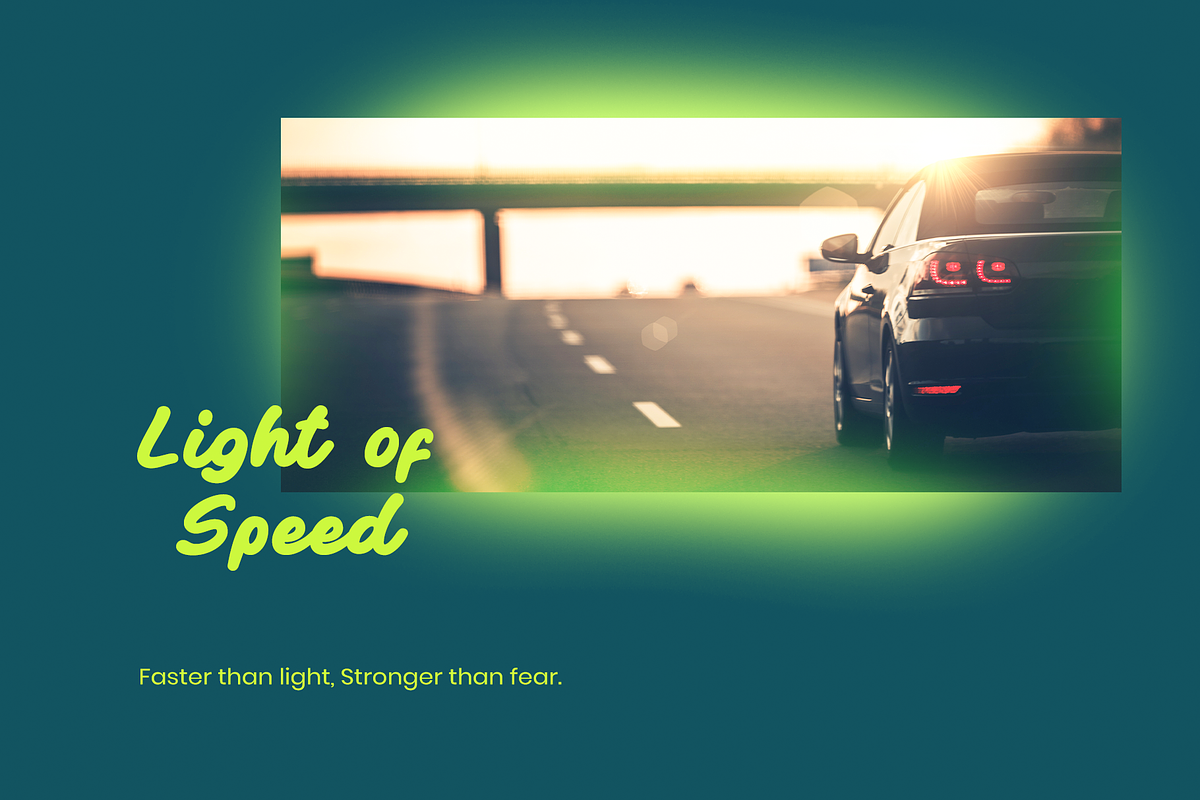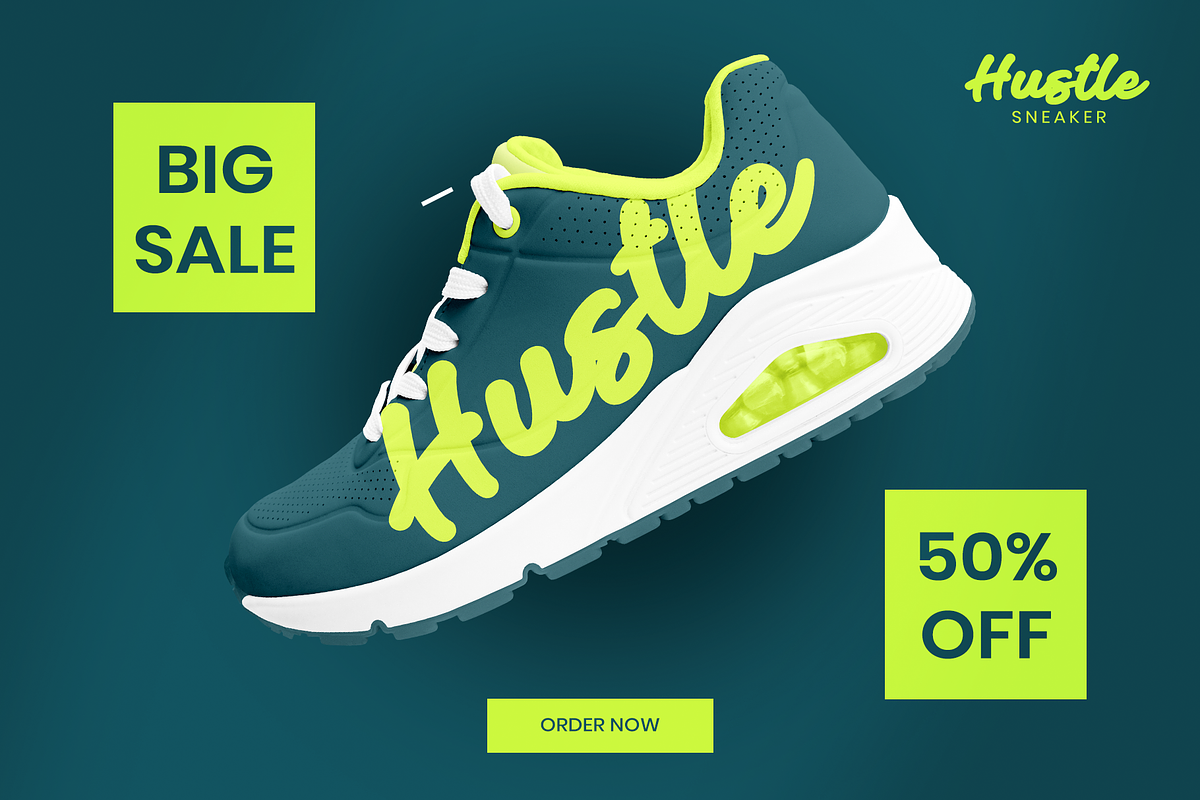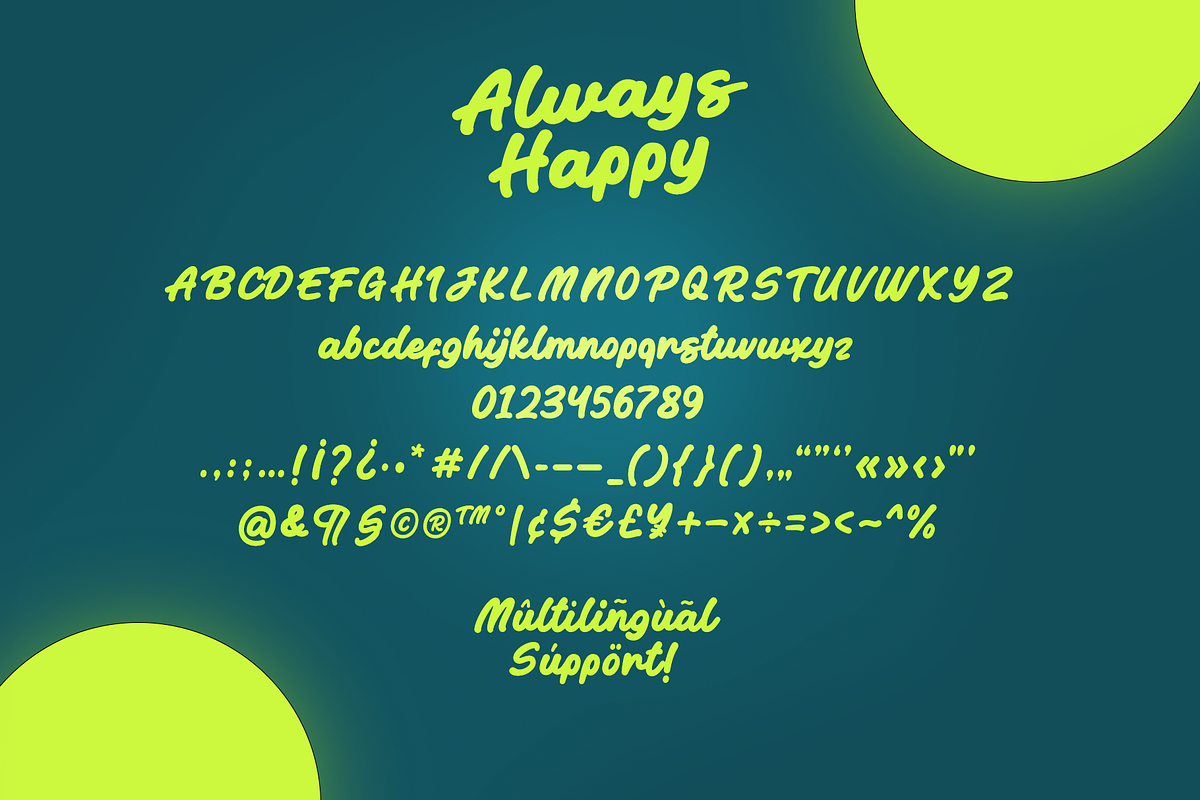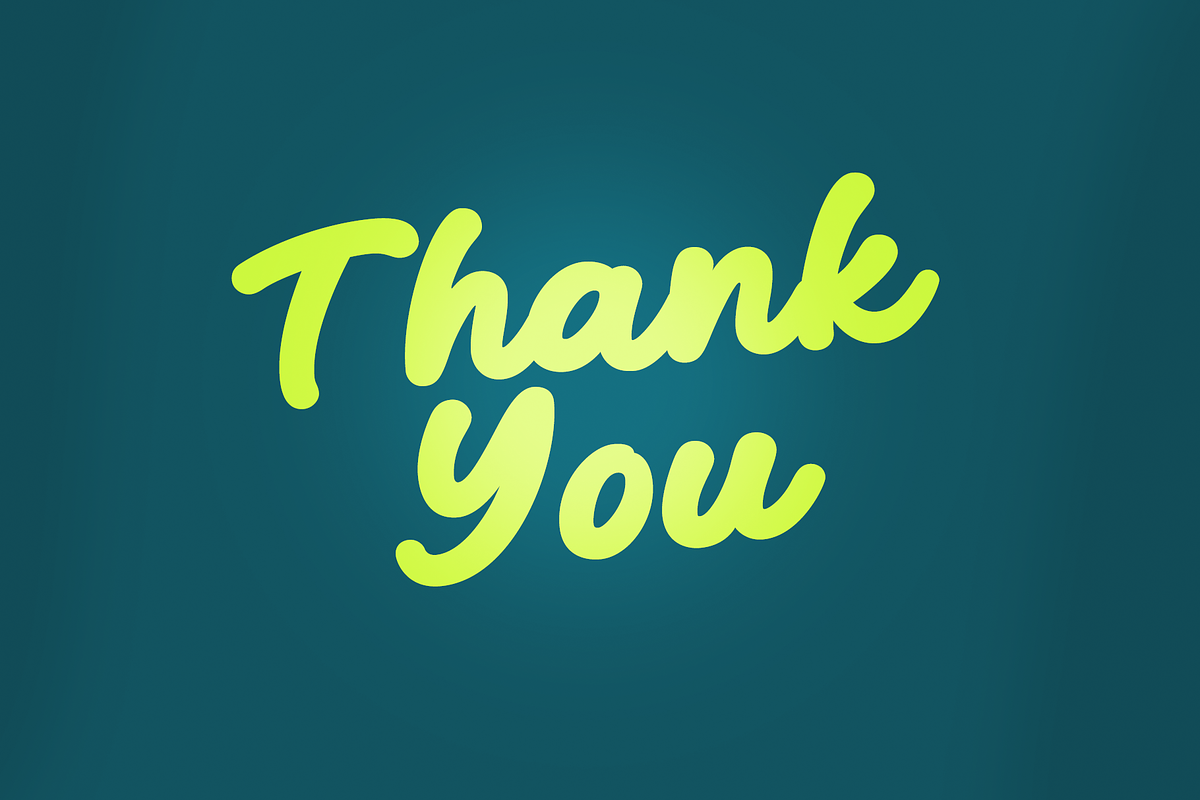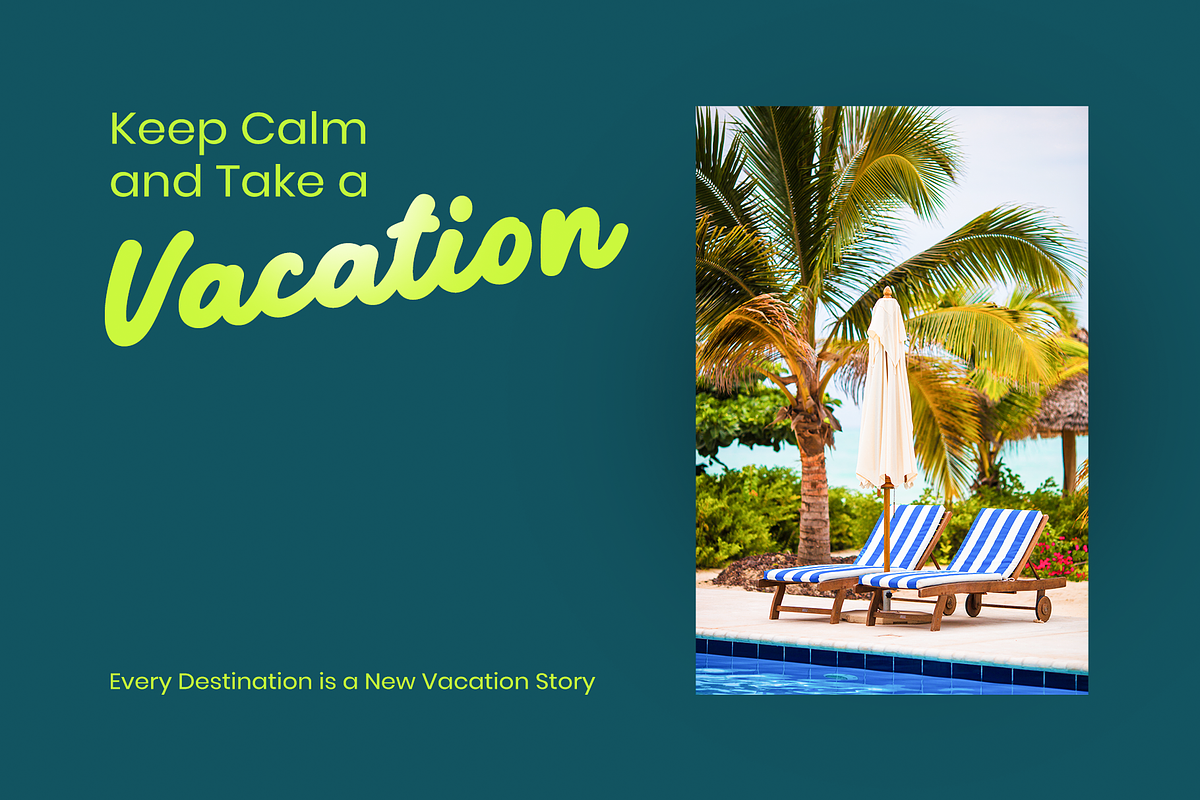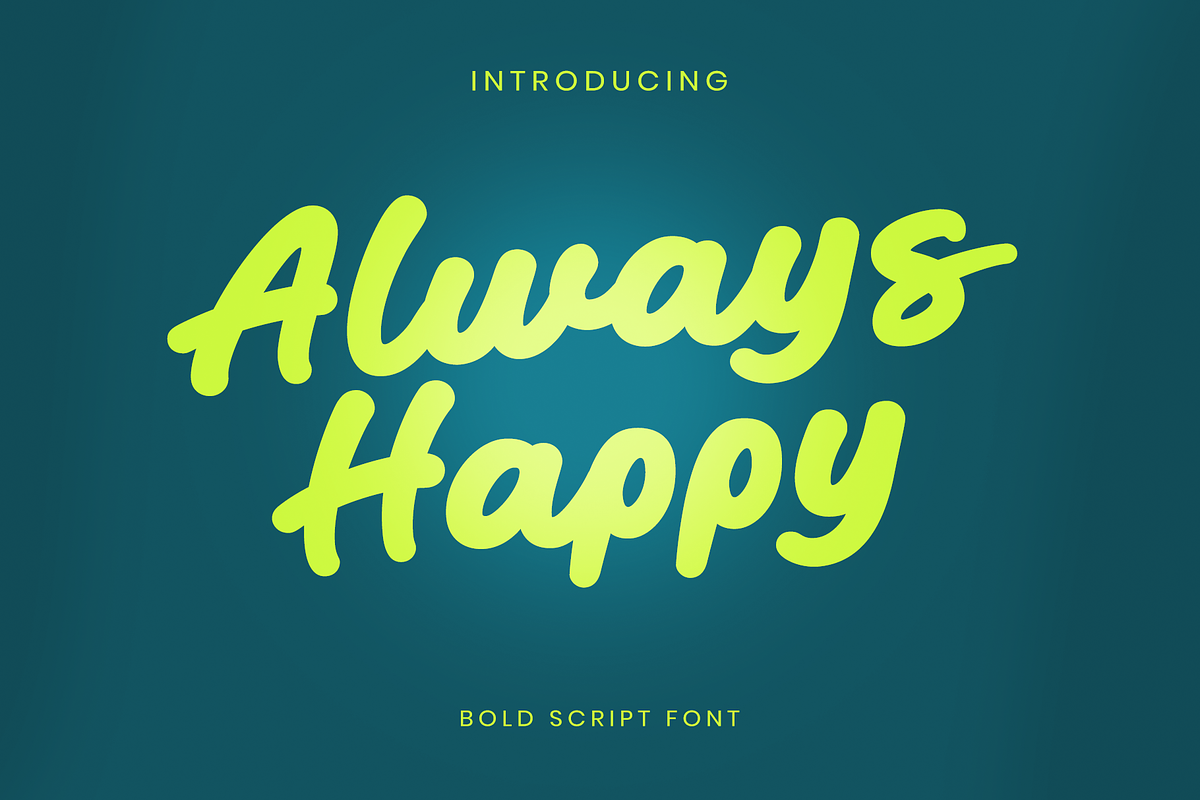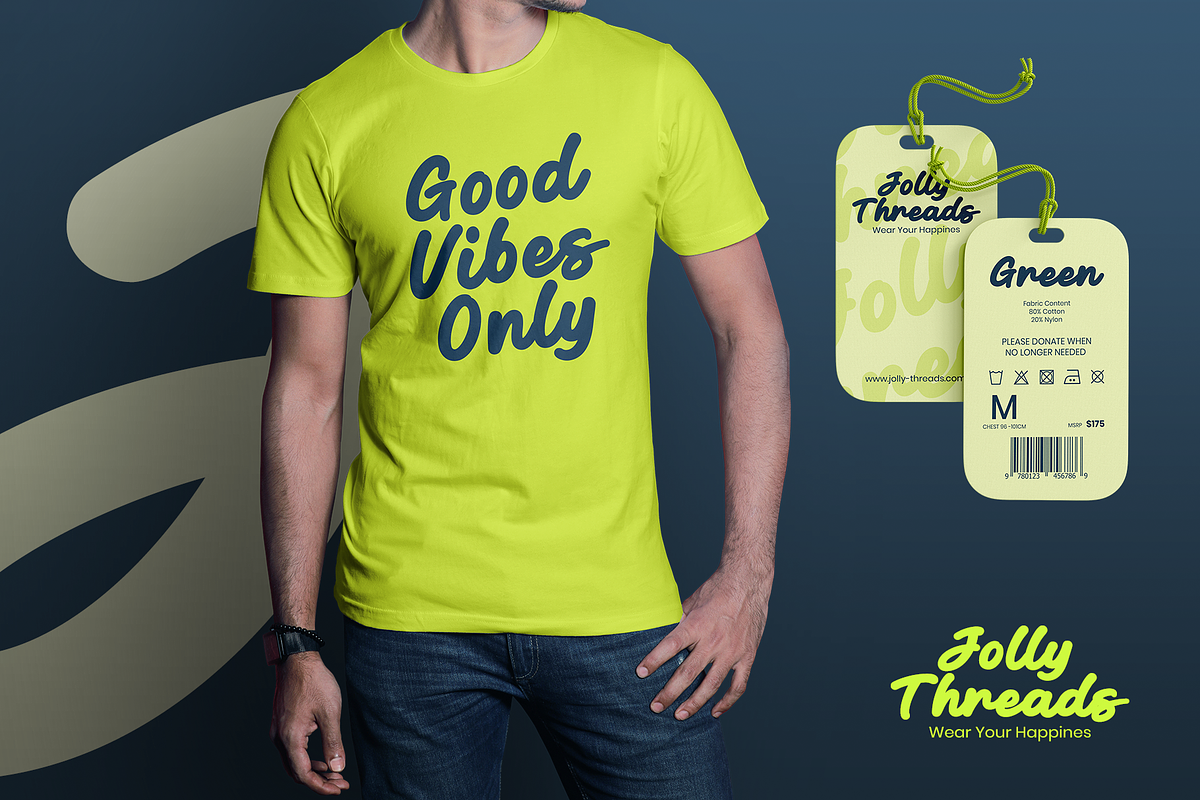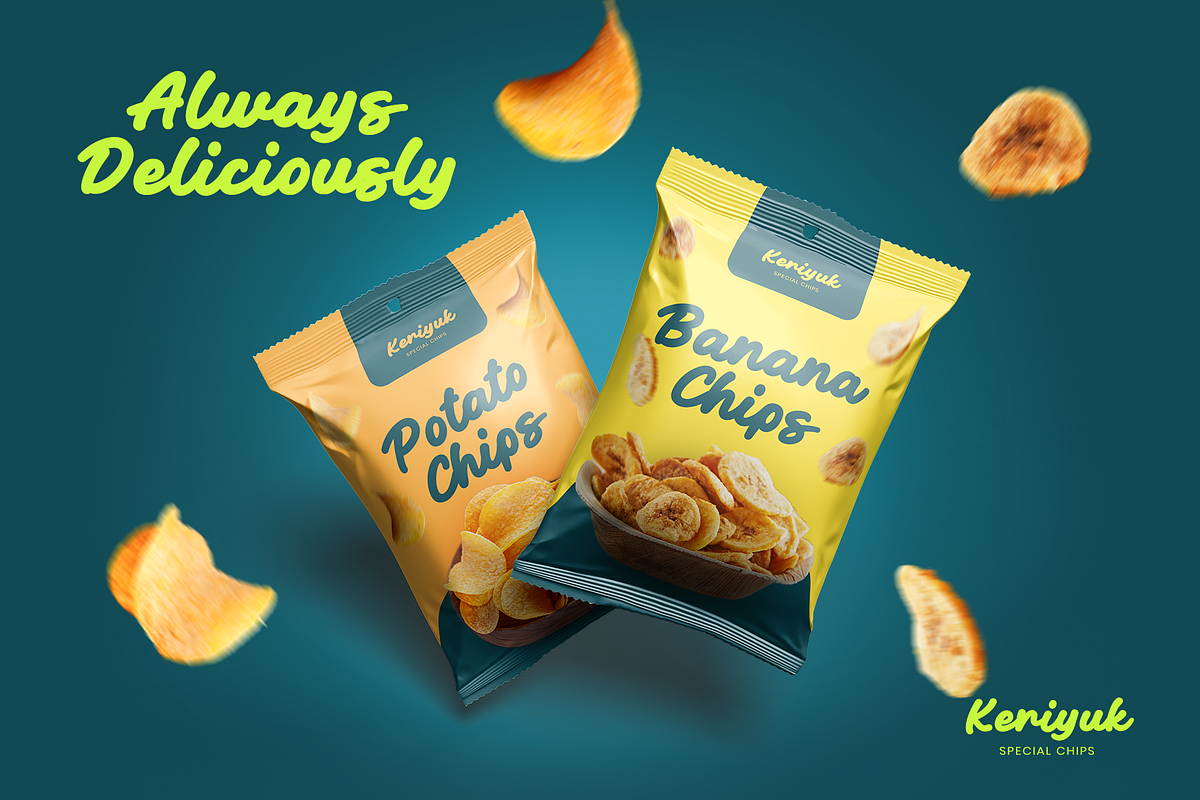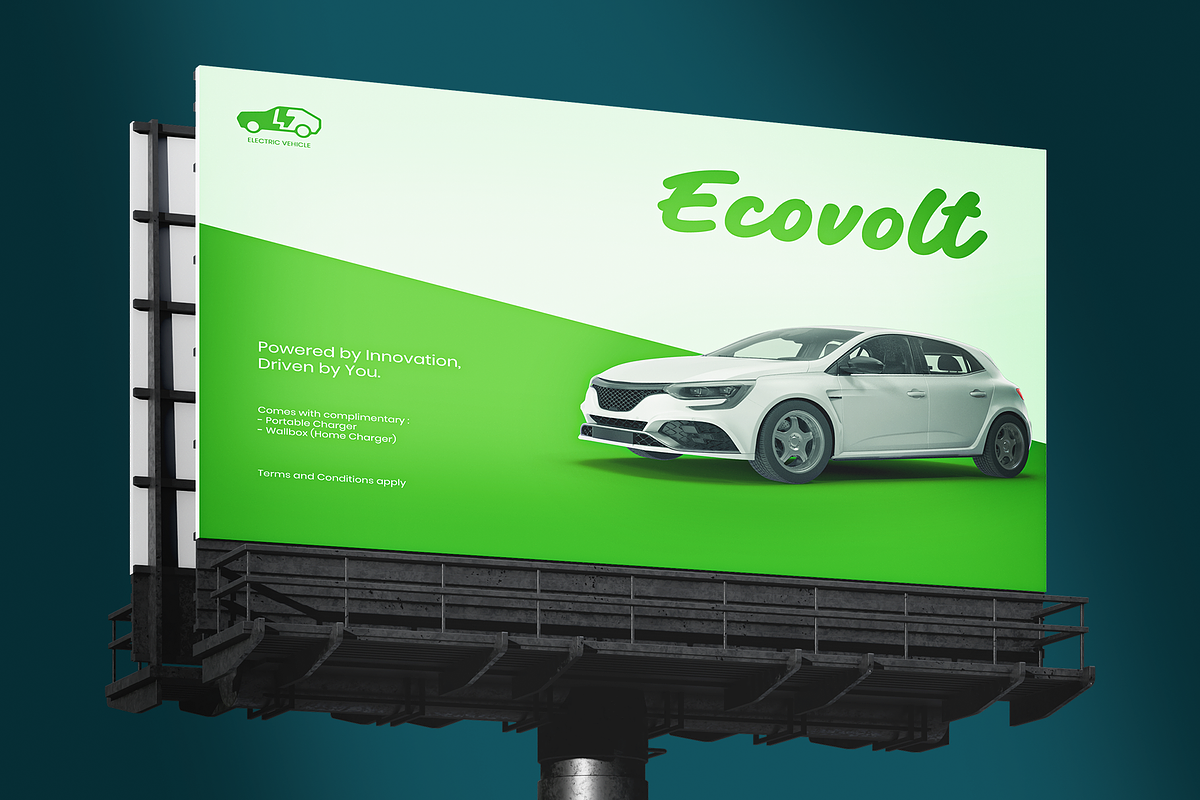
Always Happy
Always Happy is a fun and energetic handwritten font designed to bring joy and personality to your branding projects. With smooth curves and a natural flow, this font is perfect for logos, packaging, social media, and more.
- Playful and natural handwritten style
- Perfect for branding, logos, and packaging
- Multilingual support for global reach
Make your brand stand out with a cheerful and approachable style!